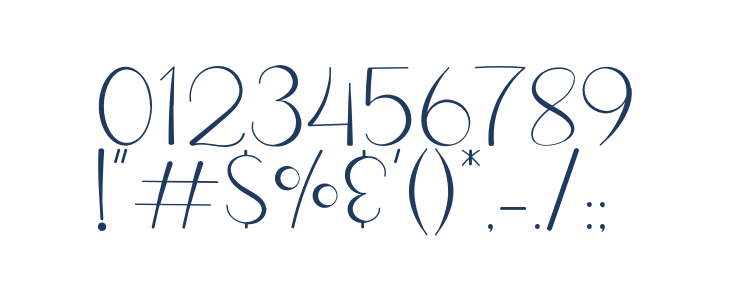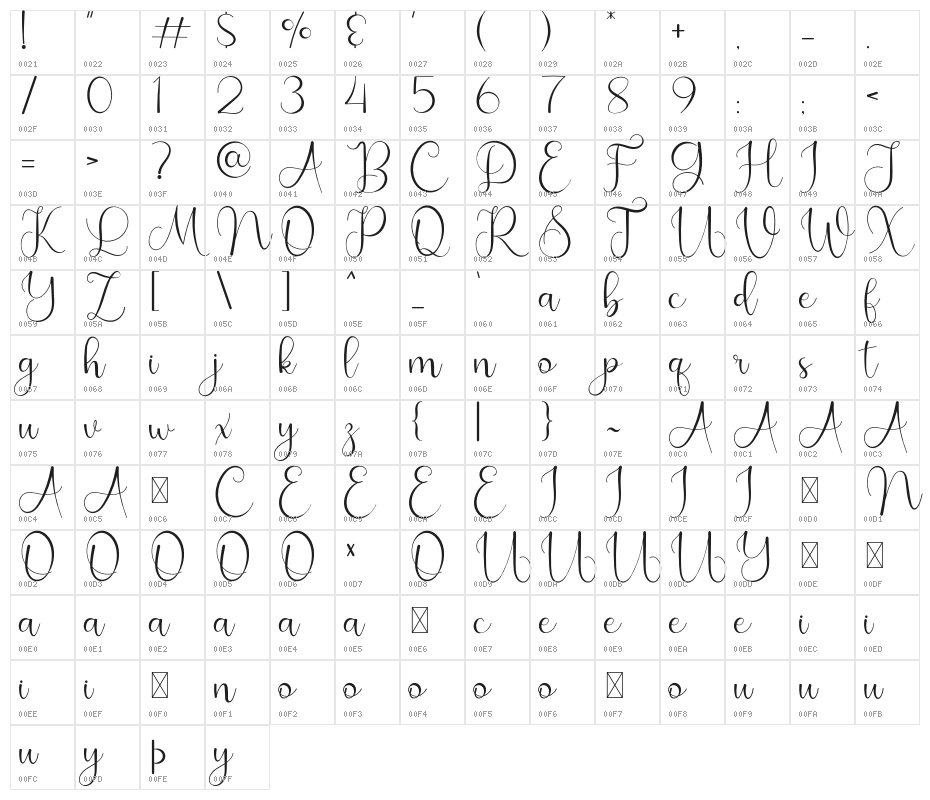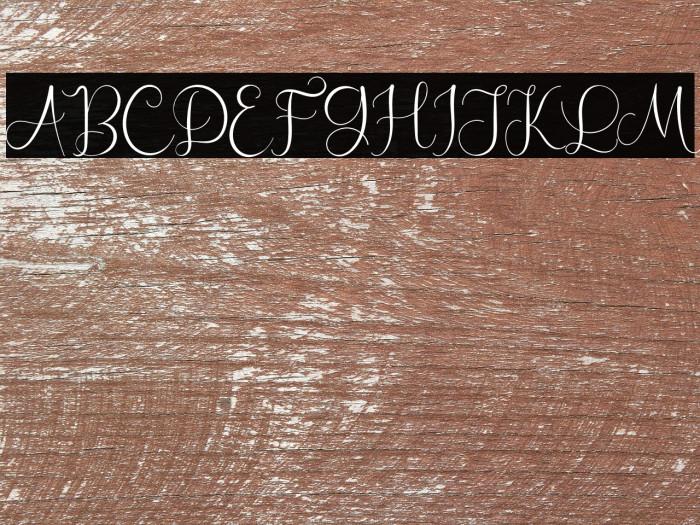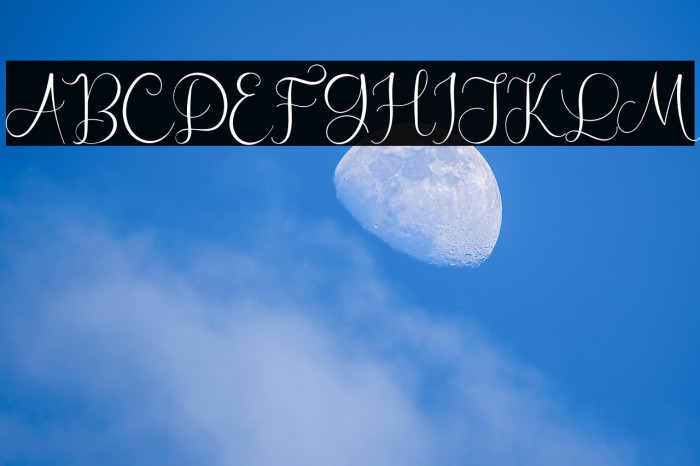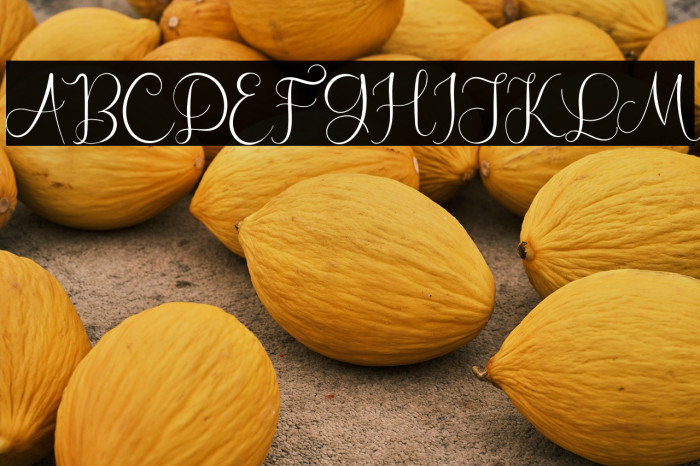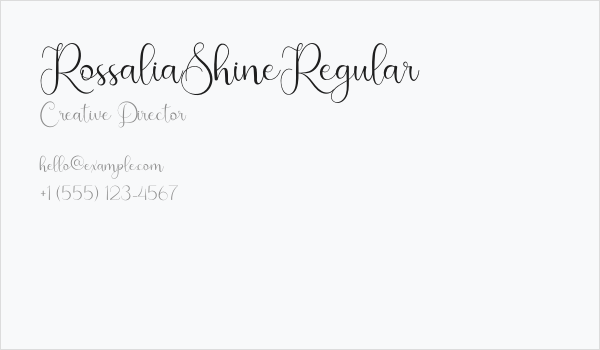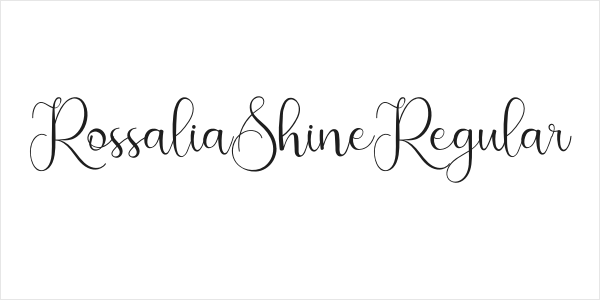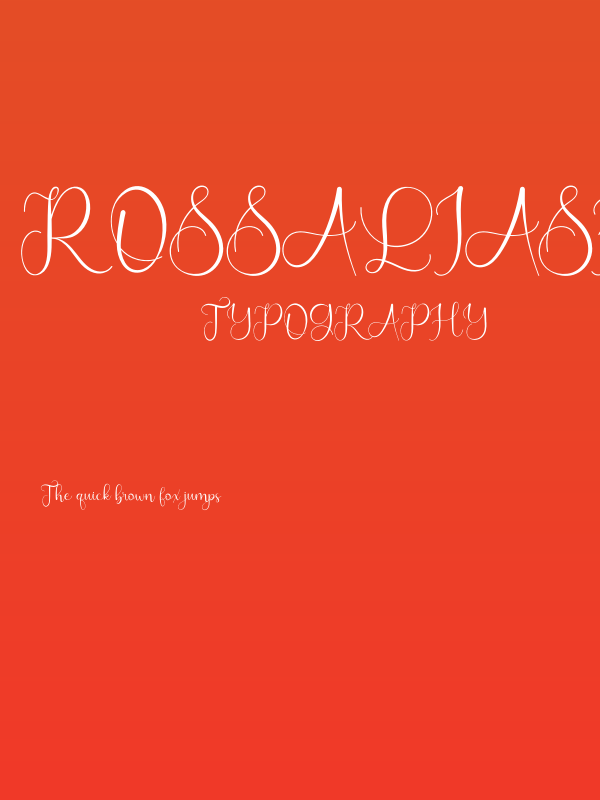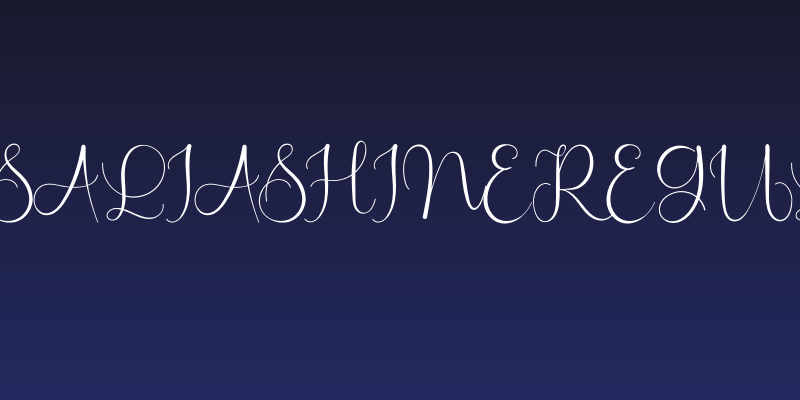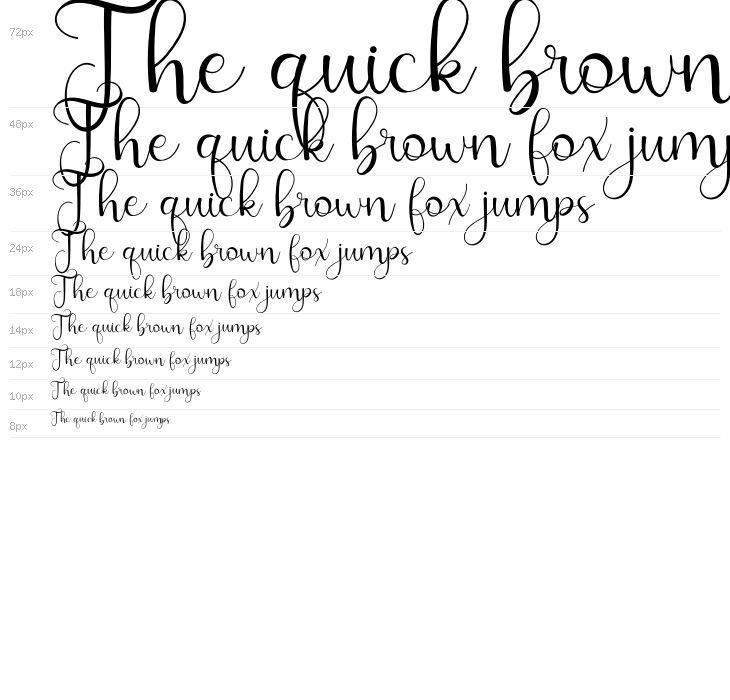
RossaliaShineRegular Font
RossaliaShineRegular Description
This font is an elegant and flowing script that combines both uppercase and lowercase letters with a sense of fluidity and grace. The uppercase letters are characterized by their intricate loops and swirls, creating a sense of movement and sophistication. The lowercase letters maintain a consistent style, with smooth curves and a slightly more compact form. The numerals are clear and legible, maintaining the same elegant style as the letters. Special characters are designed to complement the overall aesthetic, featuring similar loops and curves. This font is perfect for projects that require a touch of elegance and sophistication, such as wedding invitations, branding, and high-end product packaging.